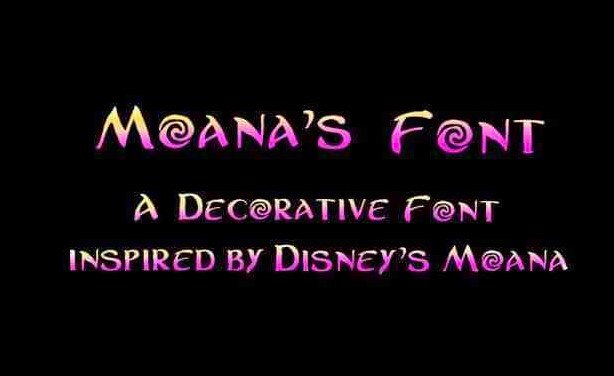
Moanas Font is a highly popular typeface due to its attractive and unique glyphs and appearance. It includes over 3 styles, such as bold, medium, and regular. All these styles are available for free without any hassle. Simply download and install this cool typeface to easily design your project.
This typeface is so much popular among graphics as well as website designers. Because of its high legible characters, you can easily utilize them in any project either graphics, web, or mobile applications.
Moanas Font is a cool, display, and fun typeface. This is the typeface that most graphic designers get by paying them lots of amounts. But, here you will download it for free and makes your project more interesting, attractive, and gorgeous.
For its great look, and boldest typeface Moanas Font is great and ideal for utilized in logo designing. Also, it can easily be workable for cover designs as well. For great results, you can also use it for pairing purposes which you will be used by combining this font with the shadows into light font getting more awesome features.
Style Display
Designer JoannaVu
The Zootopia JPosters font is very close to the Moanas Font.